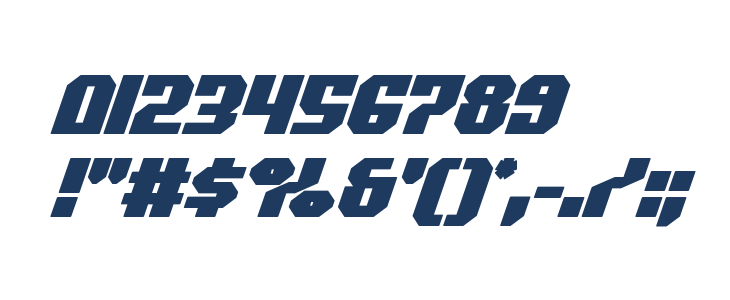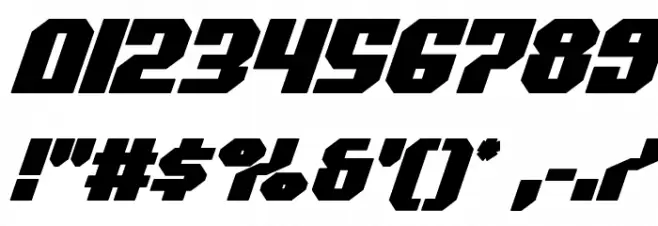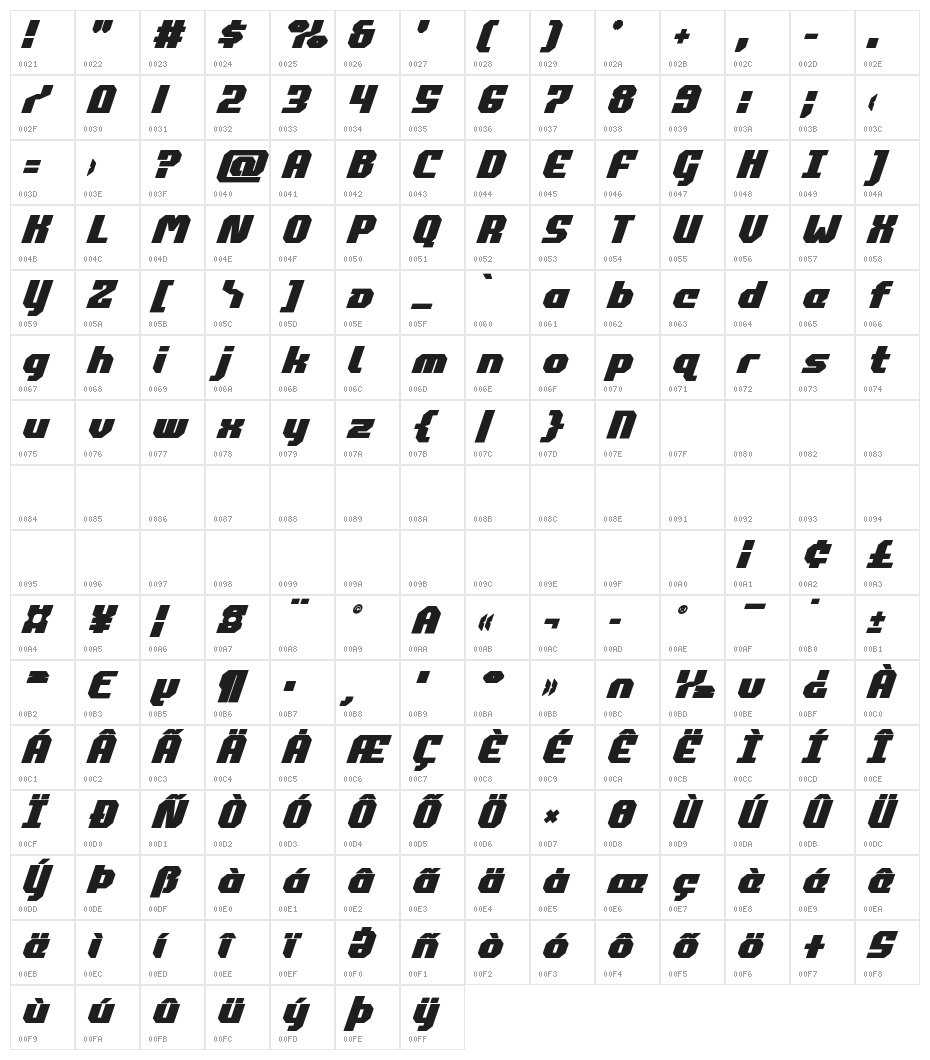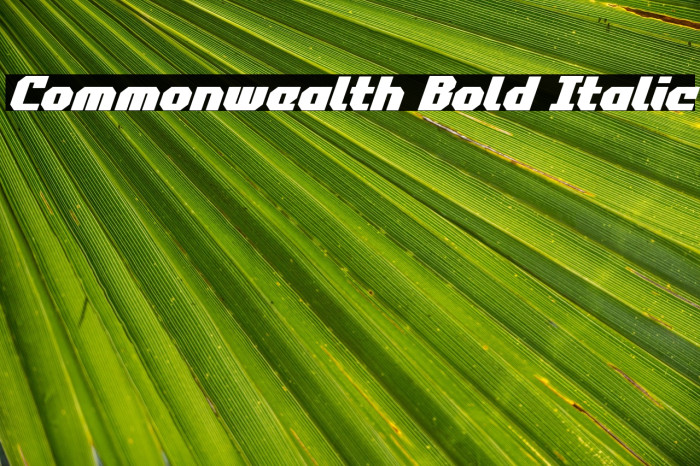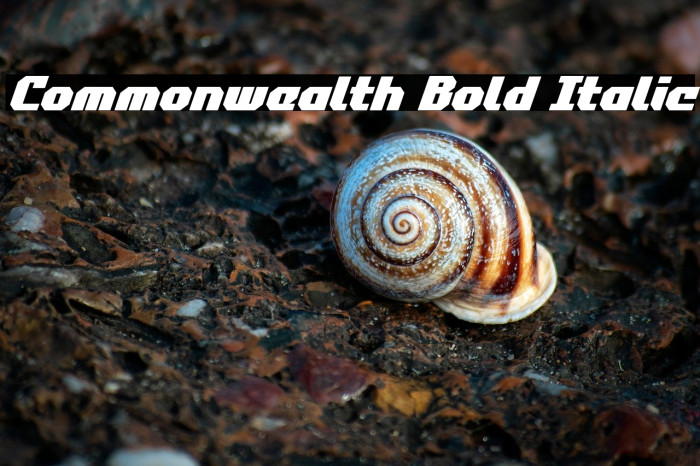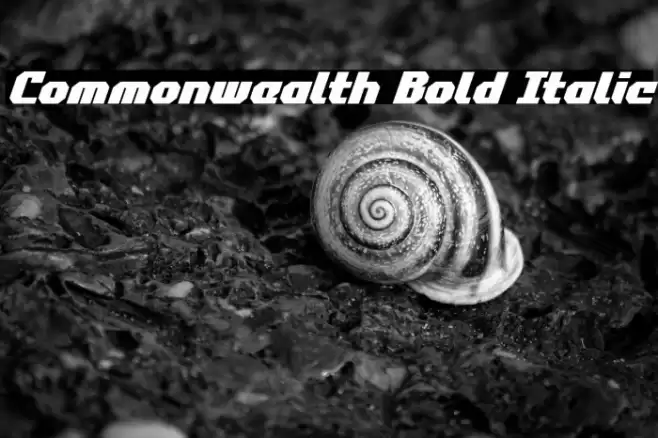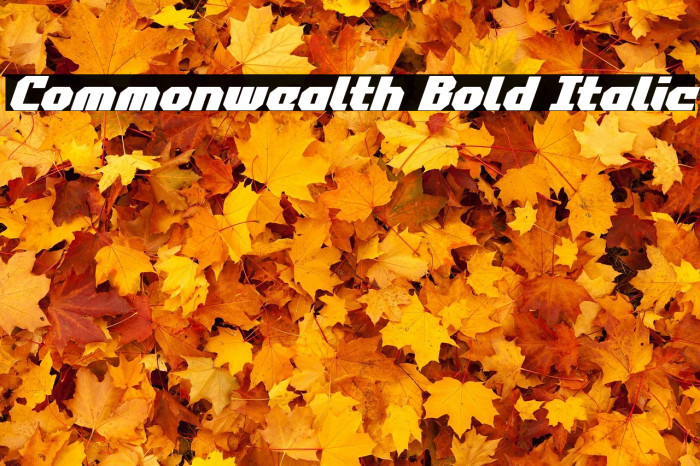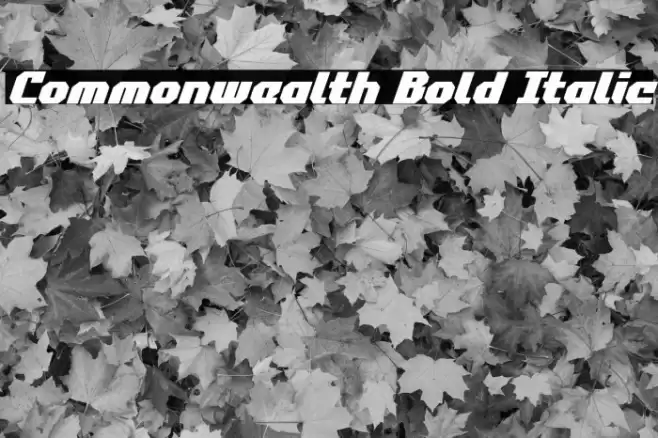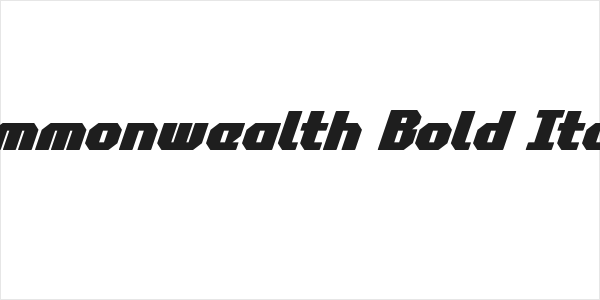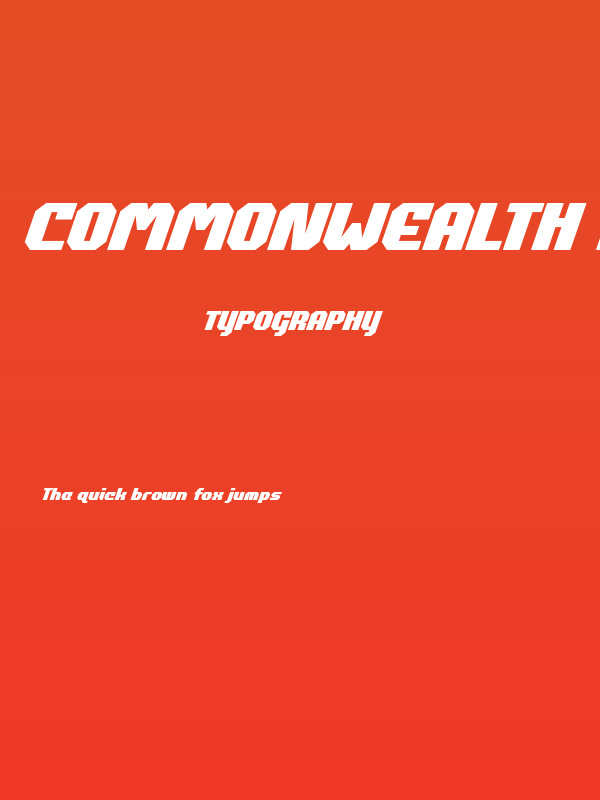
Commonwealth Bold Italic Font
Commonwealth Bold Italic Description
This font exhibits a bold and italicized style with a strong, impactful presence. The characters are designed with sharp angles and a geometric structure, giving them a modern and dynamic appearance. The uppercase and lowercase letters maintain a consistent slant, enhancing the italic effect. The numerals and special characters follow the same bold and angular design, ensuring uniformity across all glyphs. The font's thick strokes and solid form make it highly legible and suitable for attention-grabbing text.